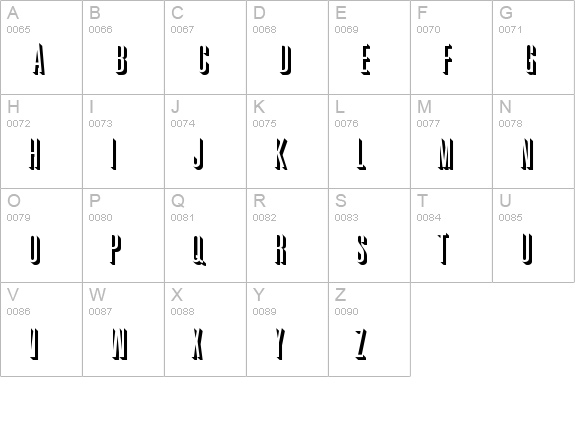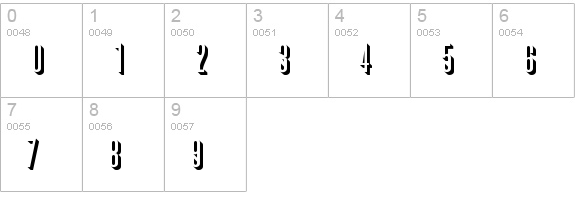
GriffonShadow Font Details
GriffonShadow font is a captivating and versatile typeface that exudes elegance and sophistication. With its unique blend of sharp edges and soft curves, this font brings a dynamic and modern touch to any design project. The intricate details of GriffonShadow font give it a sense of mystery and intrigue, making it perfect for adding a touch of drama to your creations. This font is not only visually appealing but also highly practical, as it is easy to read and works well in a variety of sizes and formats. Whether you are designing a logo, poster, or website, GriffonShadow font is sure to make a bold statement. Best of all, GriffonShadow font is completely free to download at FontsMarket.com. So why wait? Add this stunning font to your collection today and let your creativity soar to new heights with GriffonShadow.